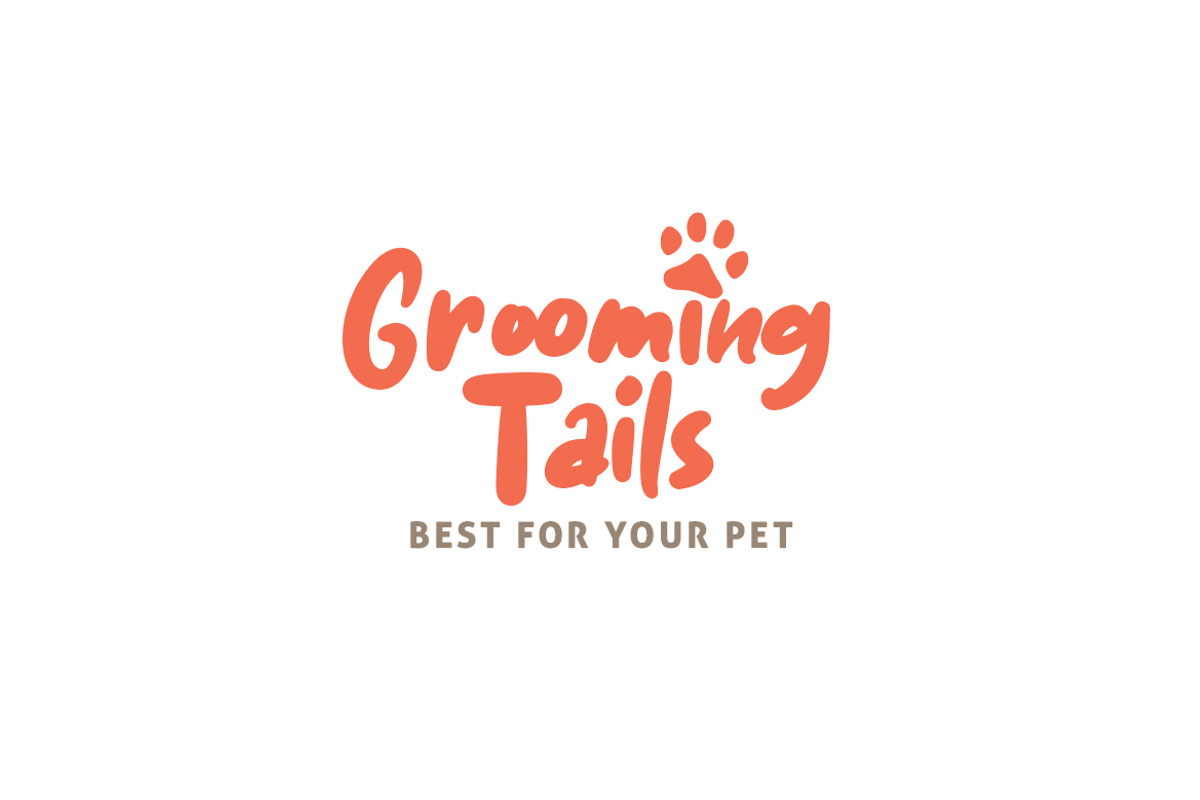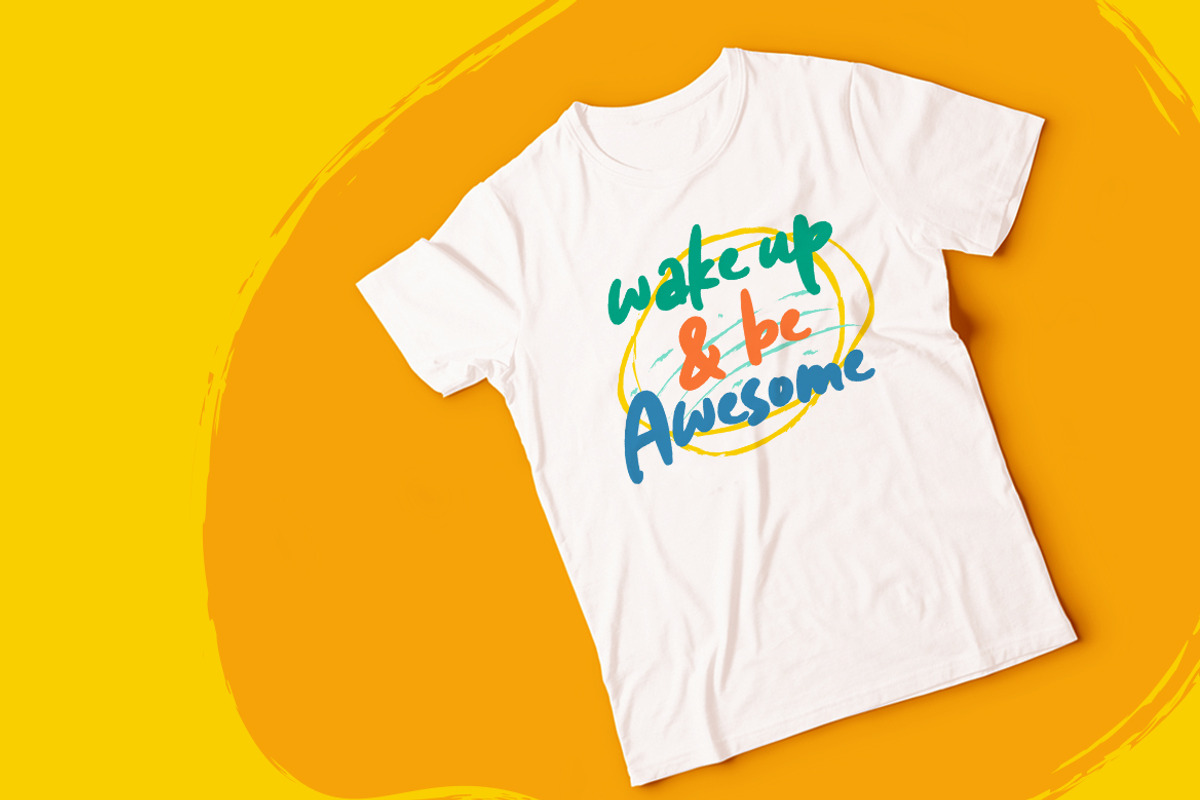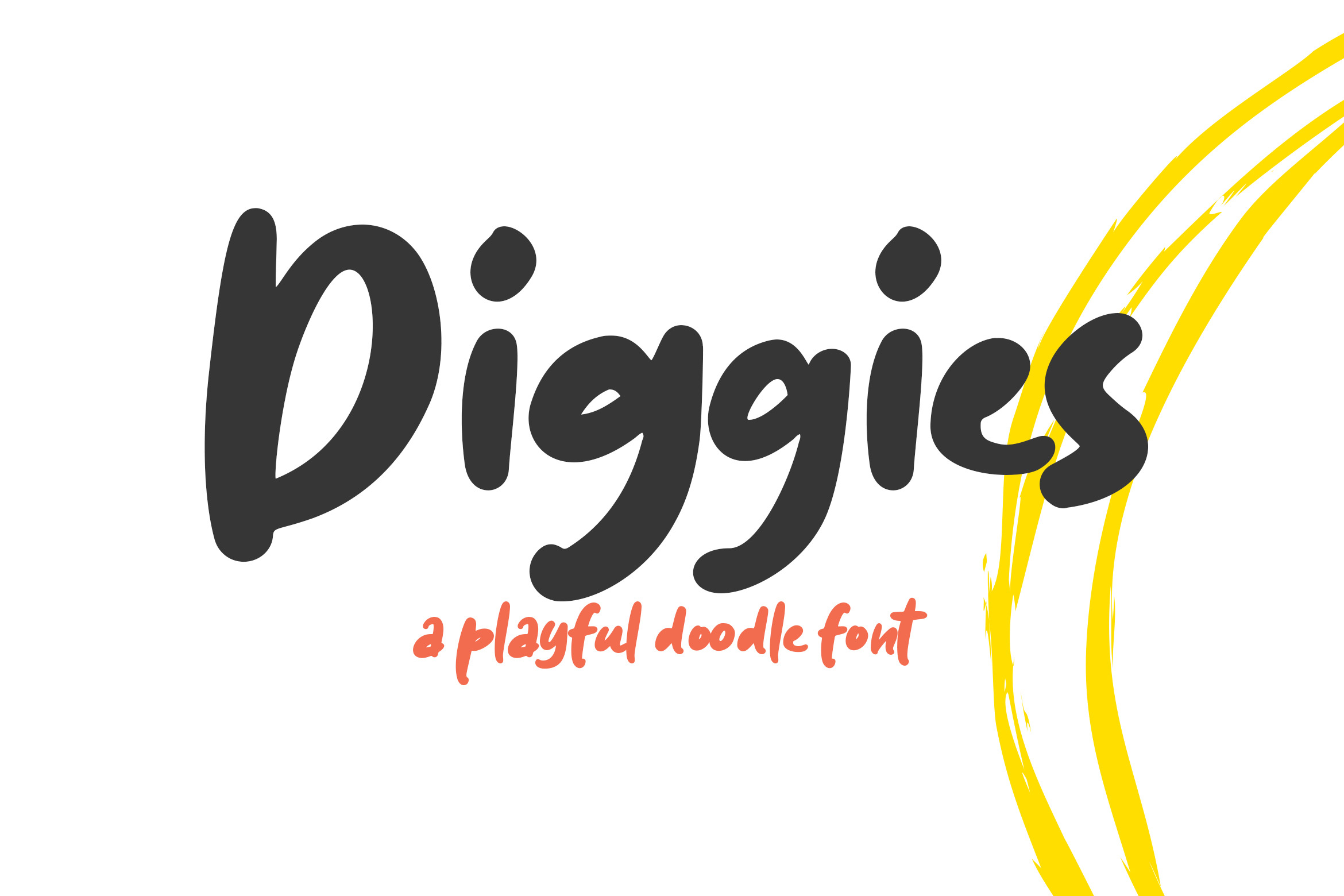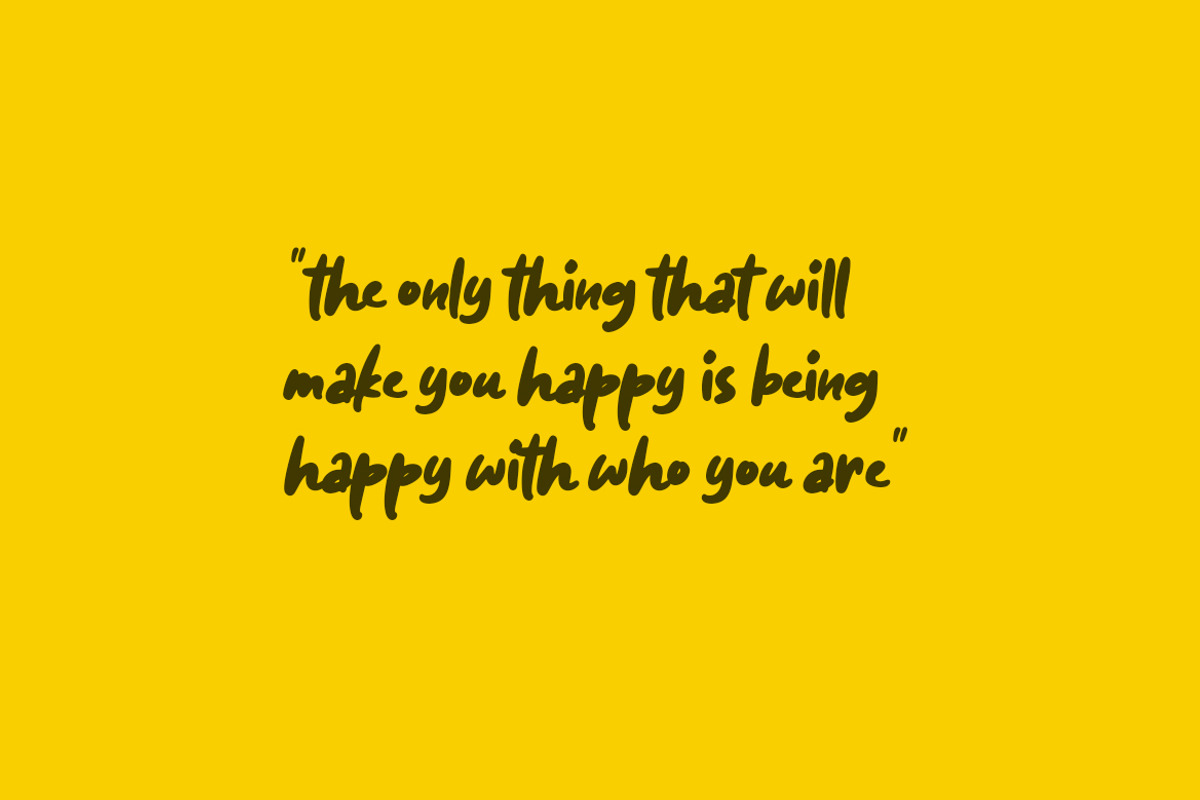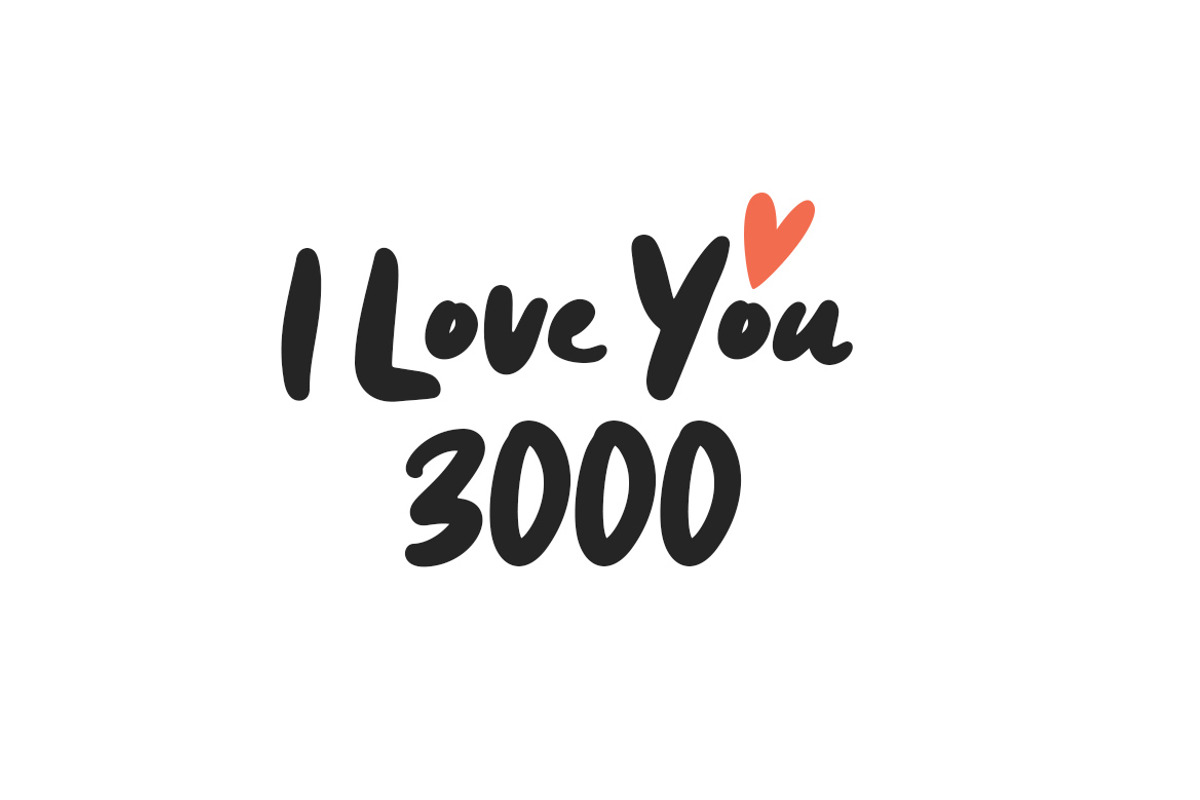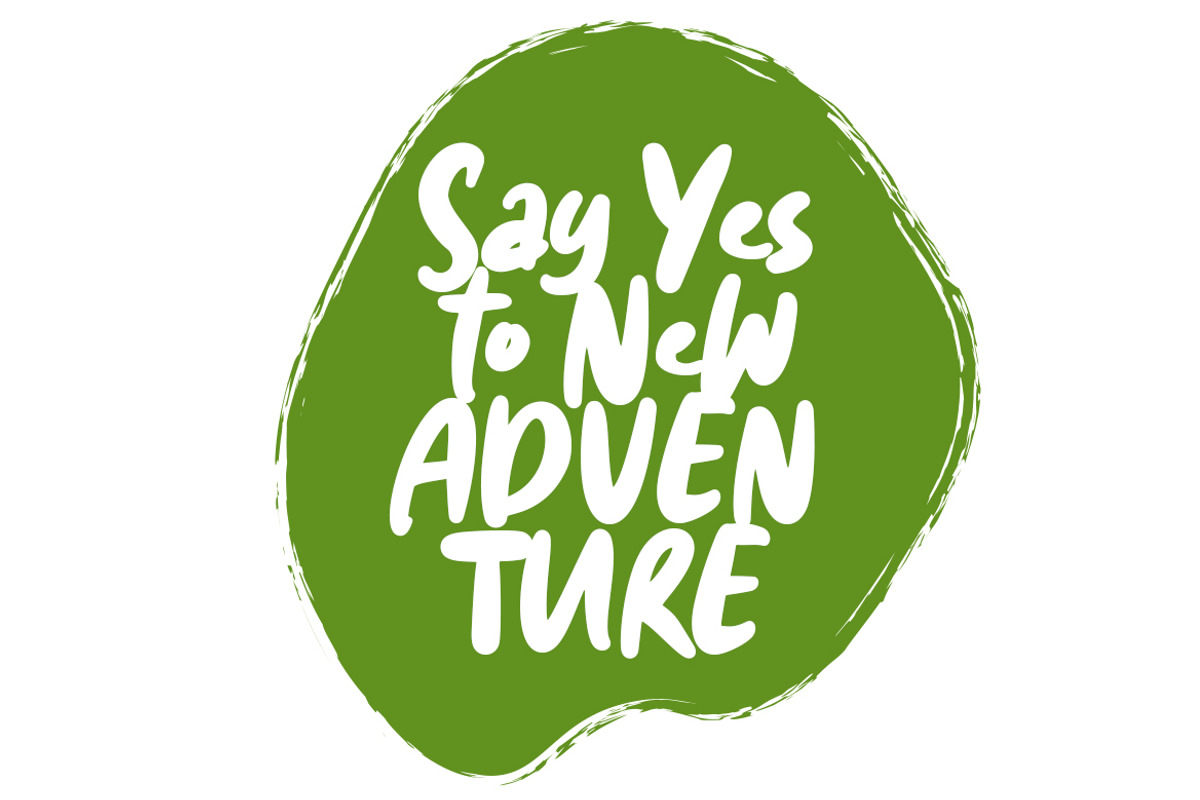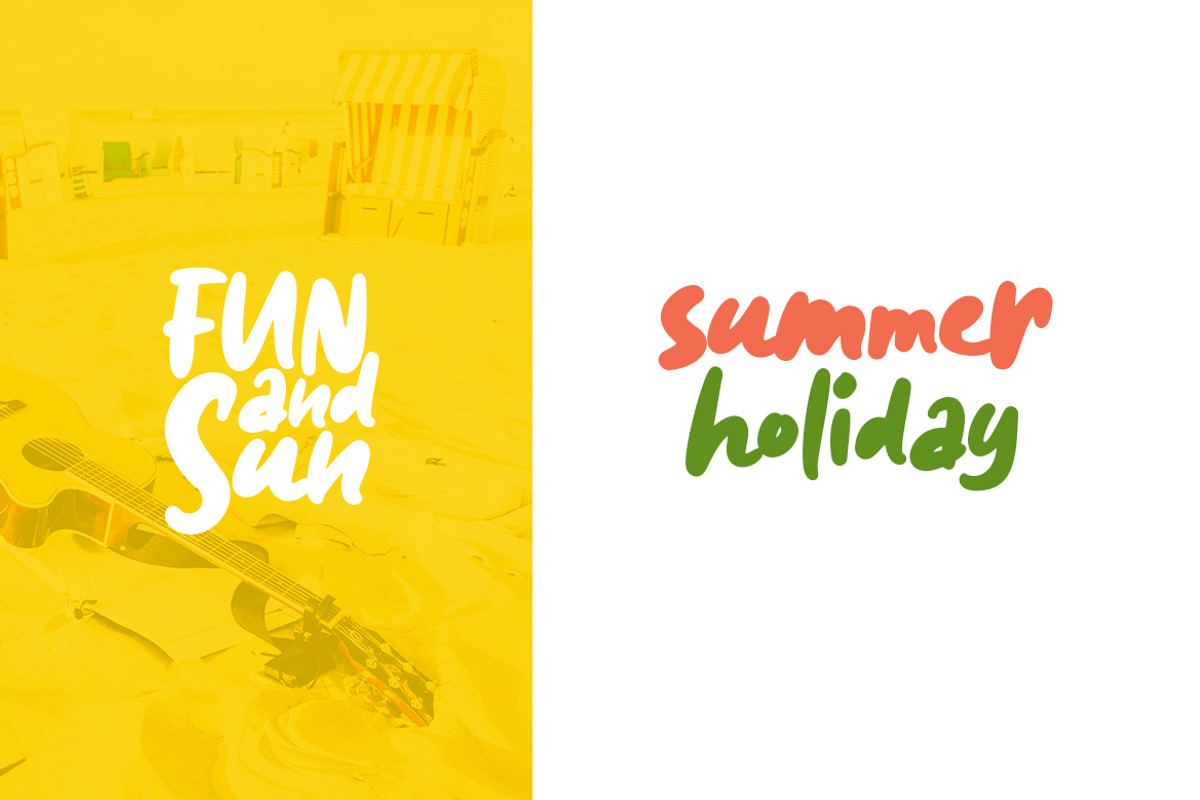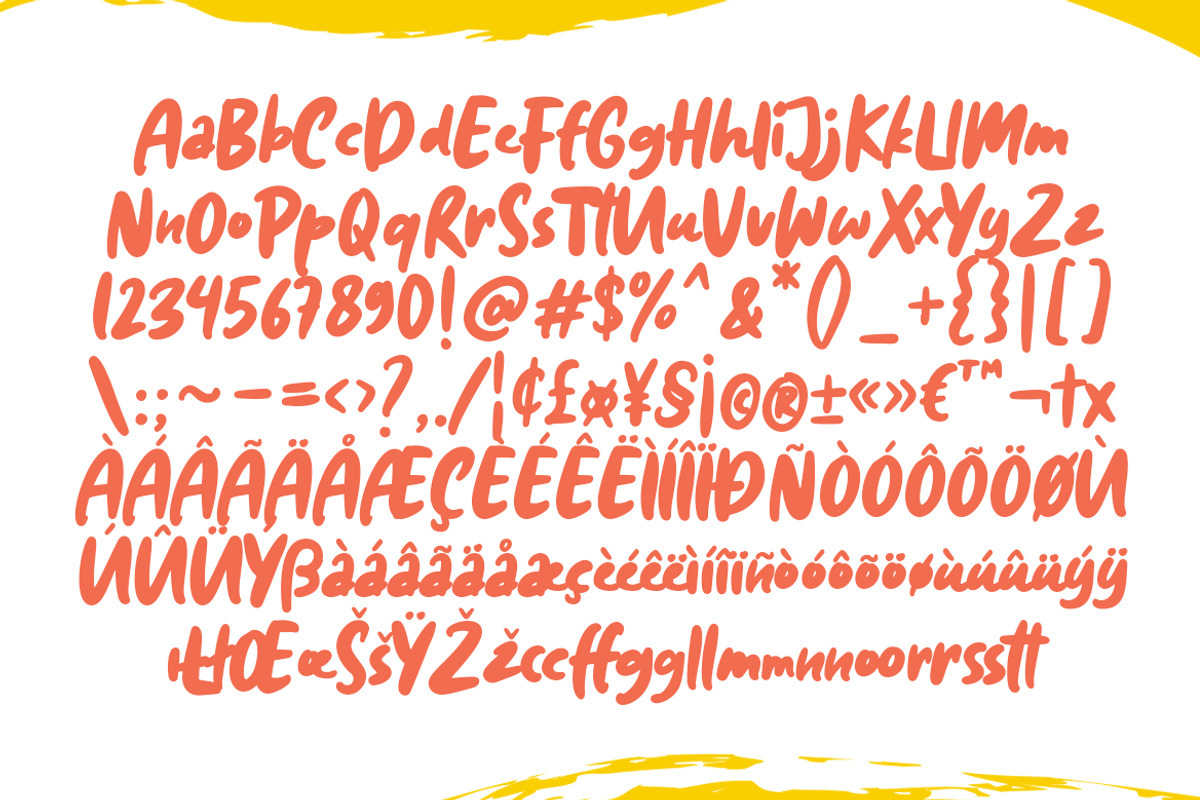
Diggies - A Playful Doodle Font
Introducing Diggies - A Playful Doodle Font, a new font with the style of the fun doodle and bold. Which is you can create a cute and fresh design.
Diggies is very suitable for logo design, kids t-shirts, birthday cards, cover book, magazine, flyer, quotes, packaging and of course much more.
This font comes in uppercase, lowercase, punctuations, symbols & numerals, ligatures, and multilingual support.